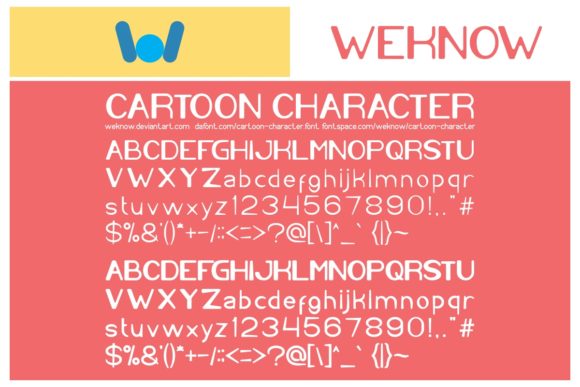
**Introducing Cartoon Character Font: Unleash Your Imagination!**
Step into a world of whimsy and creativity with Cartoon Character Font, a vibrant and playful display font brimming with personality. Its sleek lines and unassuming presence exude a timeless charm that's sure to make a lasting impression.
From playful logos that bring a touch of nostalgia to eye-catching social media posts that demand attention, Cartoon Character Font empowers you to express yourself with limitless possibilities. Imagine your designs transformed into masterpieces, captivating audiences with their effortless appeal.
Whether you're a seasoned designer or a budding enthusiast, Cartoon Character Font is your passport to a world of imagination. Embrace its versatility and watch your creations take flight. From whimsical invitations to unforgettable branding, let this font become your trusty companion on your creative journey.